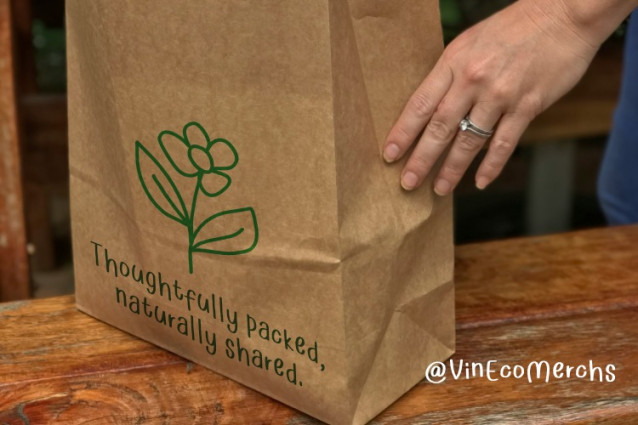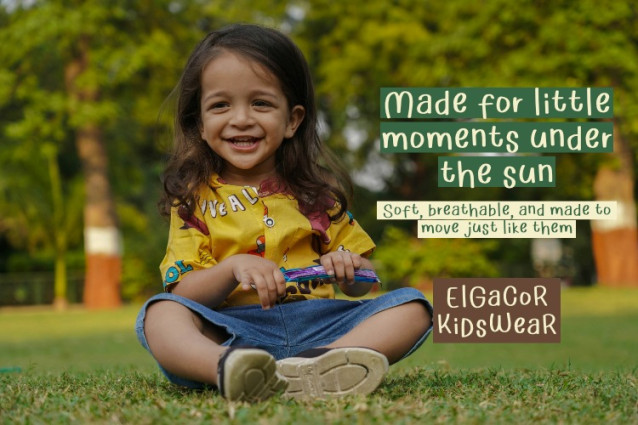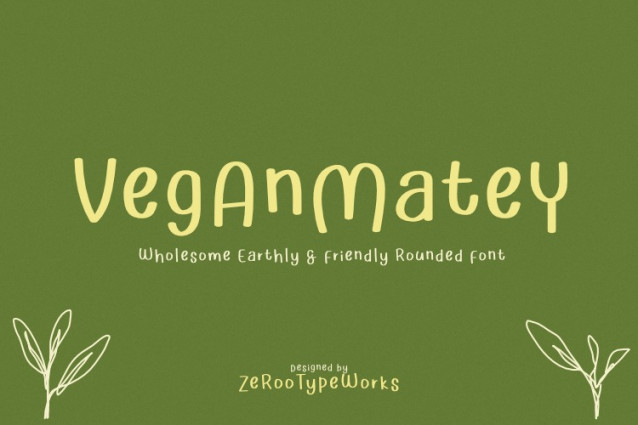
ZRTW Veganmatey Font
VeganMatey Font is a rounded, soft-style handwritten font with an earthy and organic tone, perfect for eco-conscious branding, packaging, and digital content. Its calm and clean letterforms make it ideal for plant-based labels, lifestyle quotes, children’s products, or wellness projects. With a friendly handmade feel, VeganMatey helps brands communicate warmth, sincerity, and sustainable values with eco & rounded deliverable vibes.